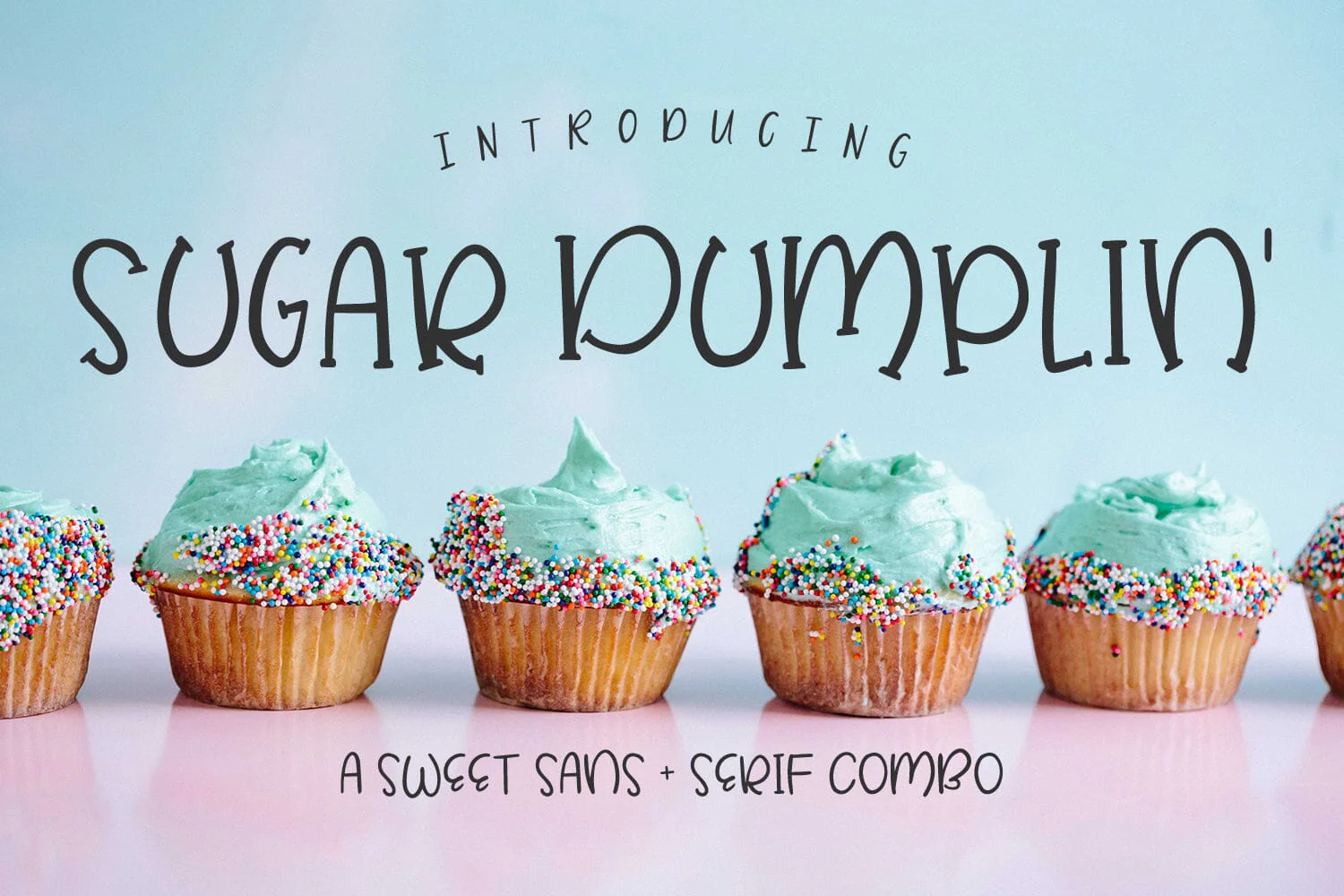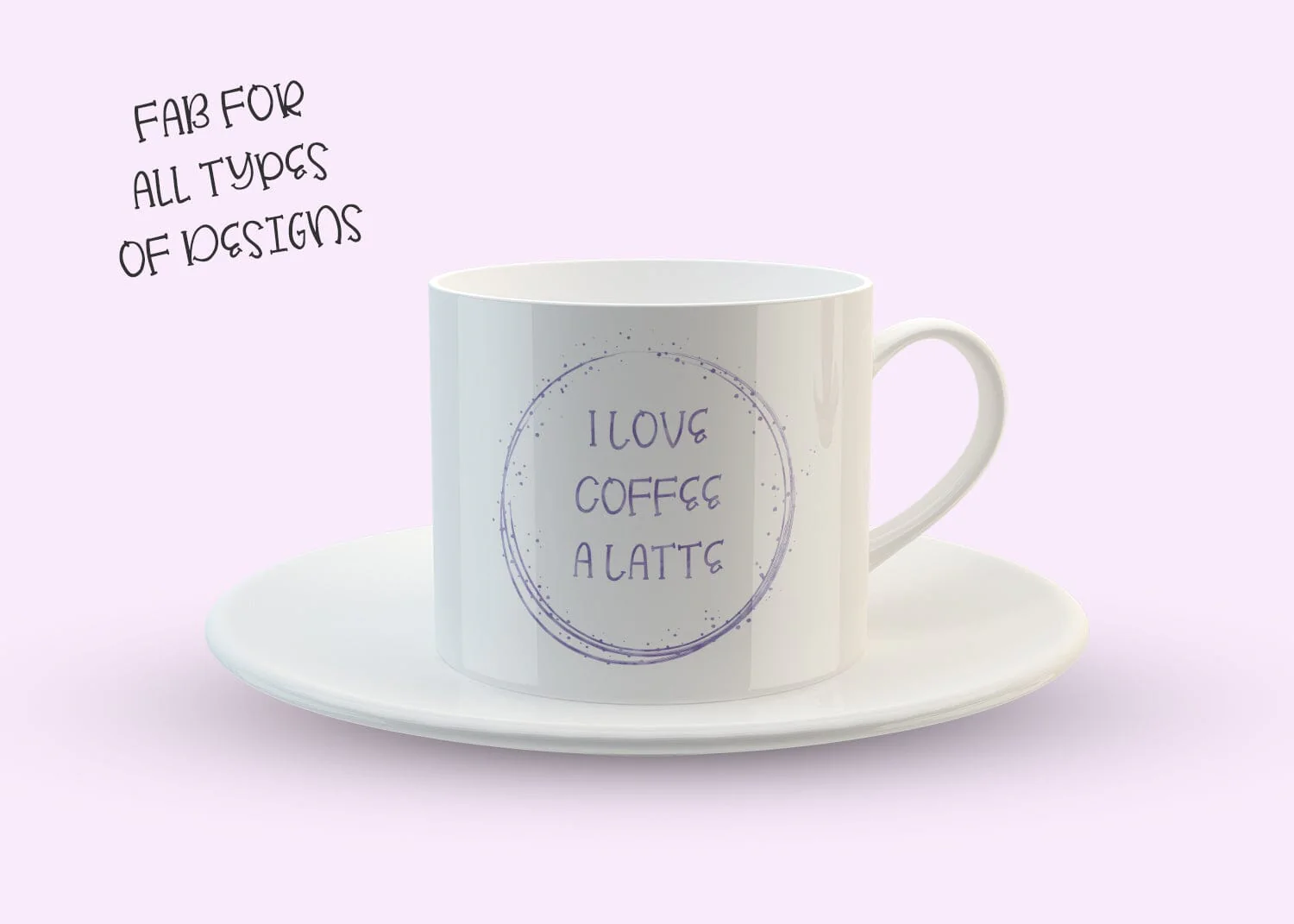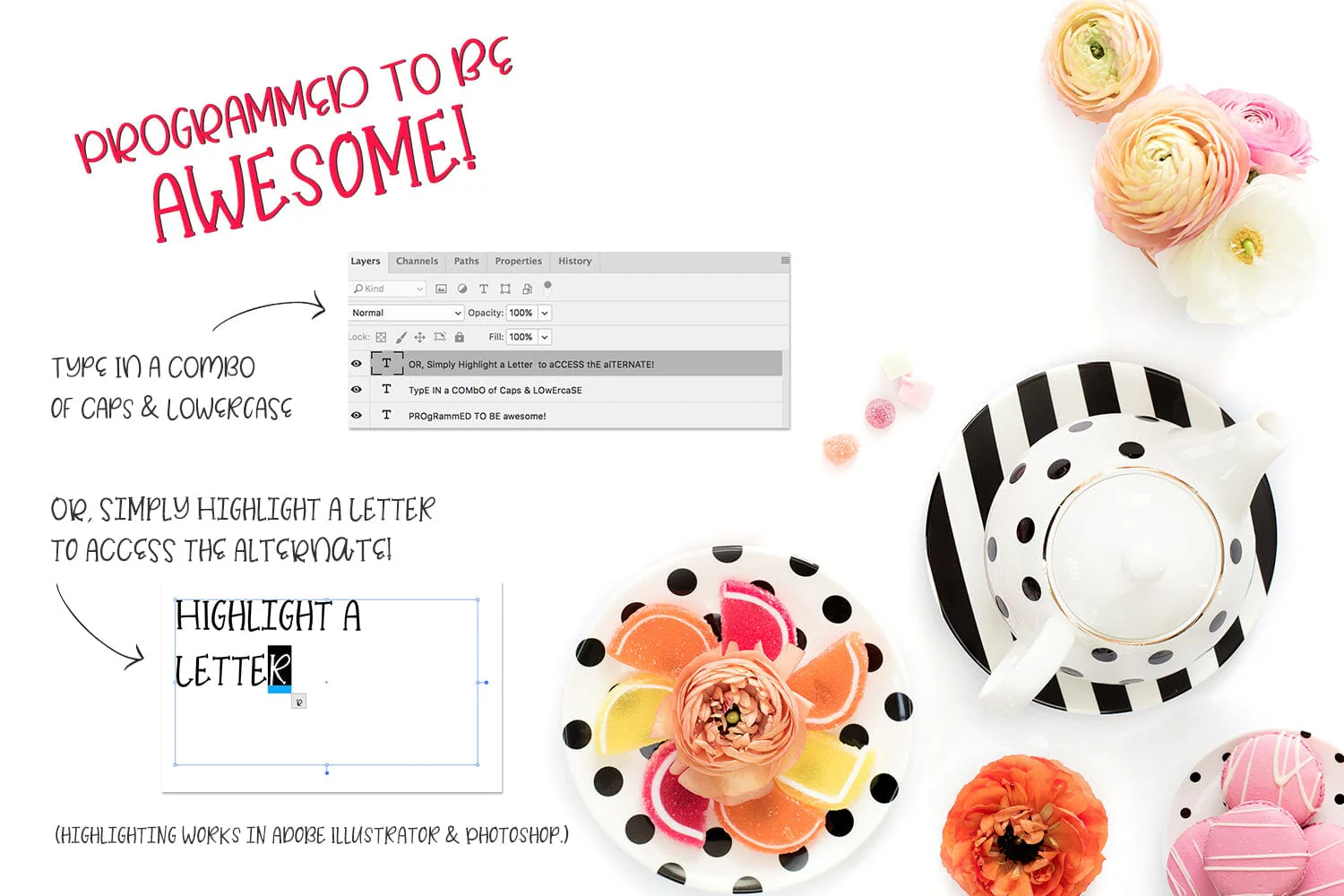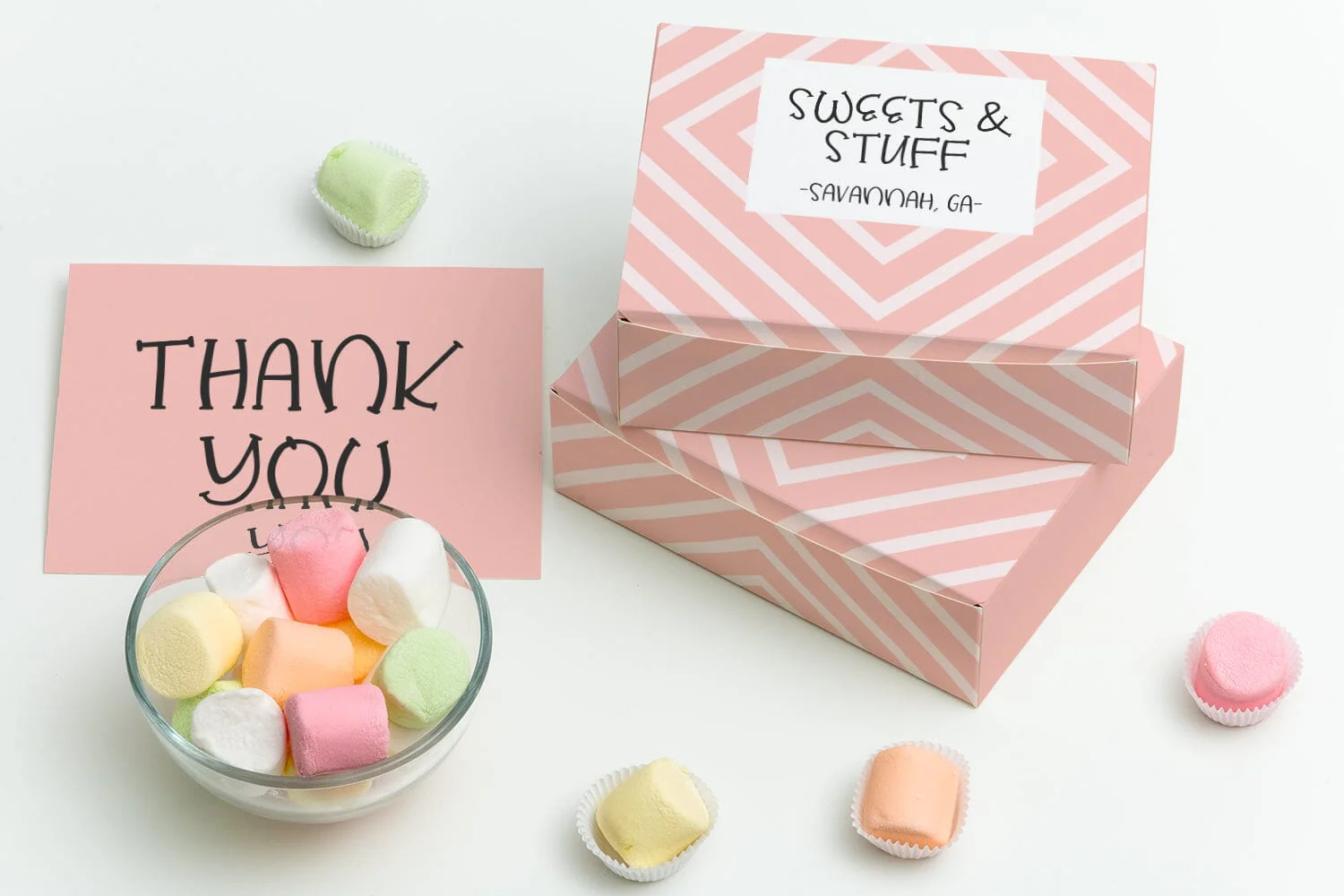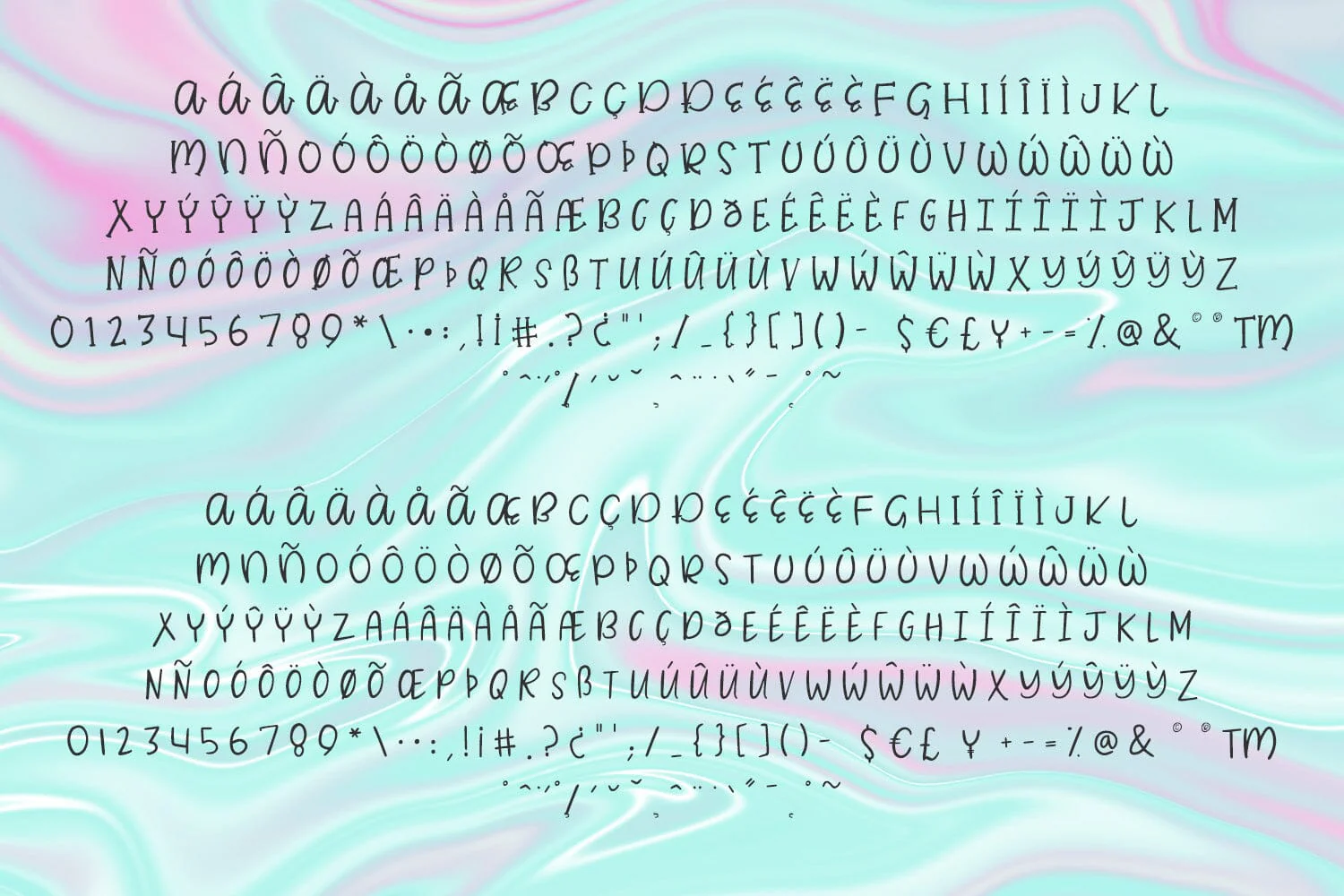
Sugar Dumplin' Sans + Serif Font Duo
Introducing Sugar Dumplin'
A sweet sans & serif font duo -- Sugar Dumplin' is an all-caps font, with different options for each letter!
Named with inspiration from the Southern tradition of sugary sweet nicknames, this font offers the option to use a combo of upper & lowercase to access the letter variations. You can also highlight & choose the alternate in Adobe Illustrator or Photoshop -- it was programmed this way for your convenience!